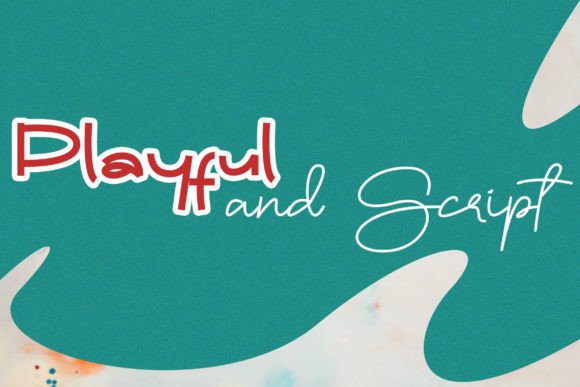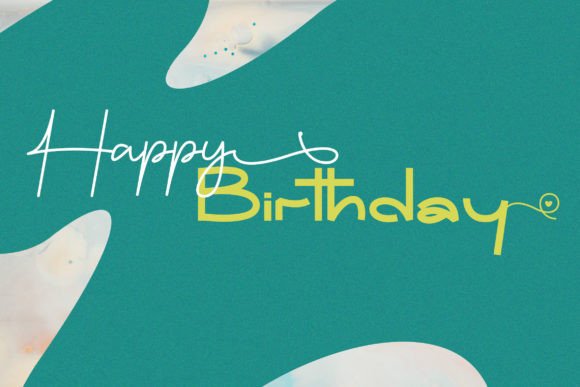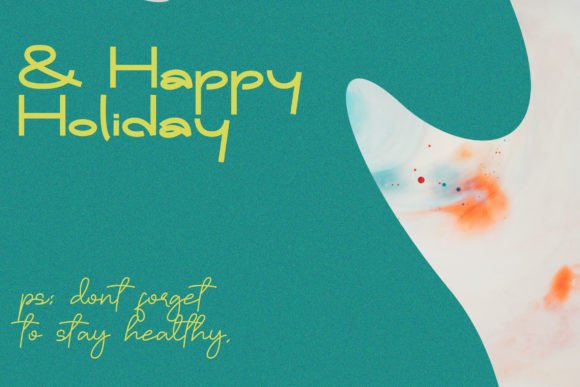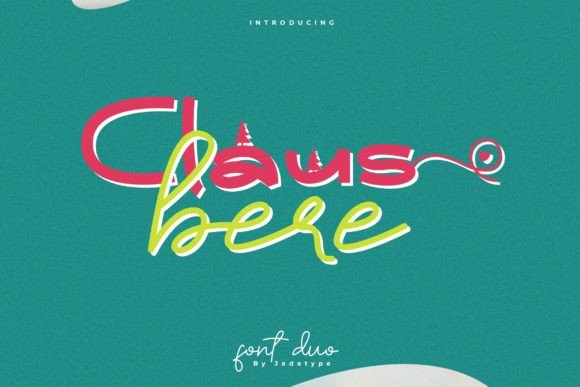
Introduction to Clausbere Font
Clausebere is duo fonts that are paired with each other.
A display and a script font suitable for pairing as a complement to your graphic design, wordmarks, logos, handicrafts, branding, and others It has dozens of stylish alternates and ligatures.